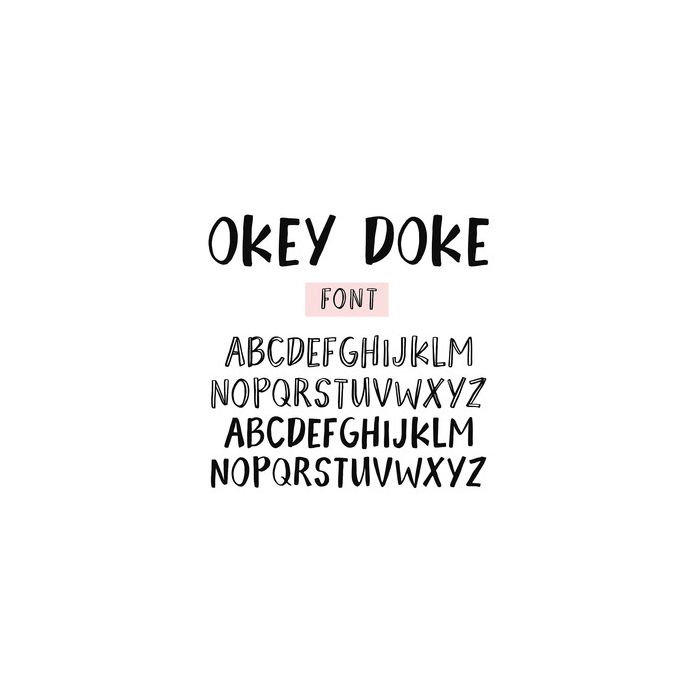
Meet Okey Doke Font by Angie Makes. Okey Doke has Solid and Hollow, Outlined Characters. Type Uppercase A-Z for Solid Letters and Lowercase a-z for Hollow Letters. Numbers, Punctuation, and International Characters Included. Visit angiemakes.com For more Information About Fonts.